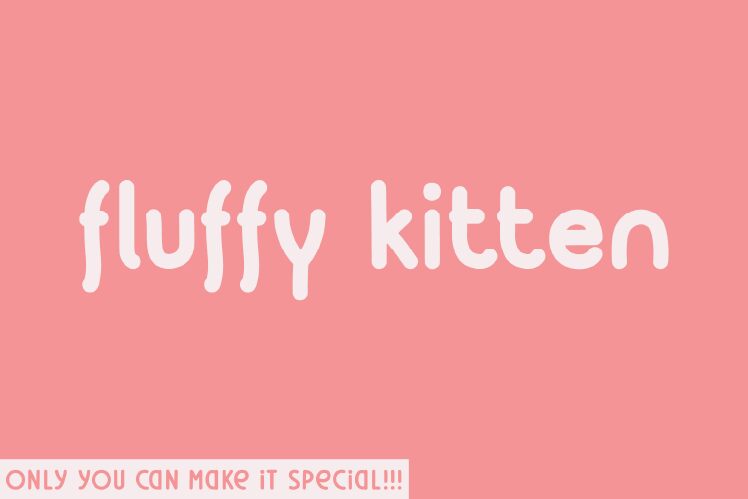
Fluffy Kitten font looks and feels as soft and warm as a kitten. Created by Hanna Bie of HannaBie Creative Studio, this free font is based on natural handwriting with a friendly touch.
This casual display typeface can be used to design T-shirts or other daily use items with friendly messages printed on them. Fluffy Kitten allows product and packaging designers to brighten things up a notch with expressive writings on biscuit packs or even labels placed carefully on chocolate boxes for example.